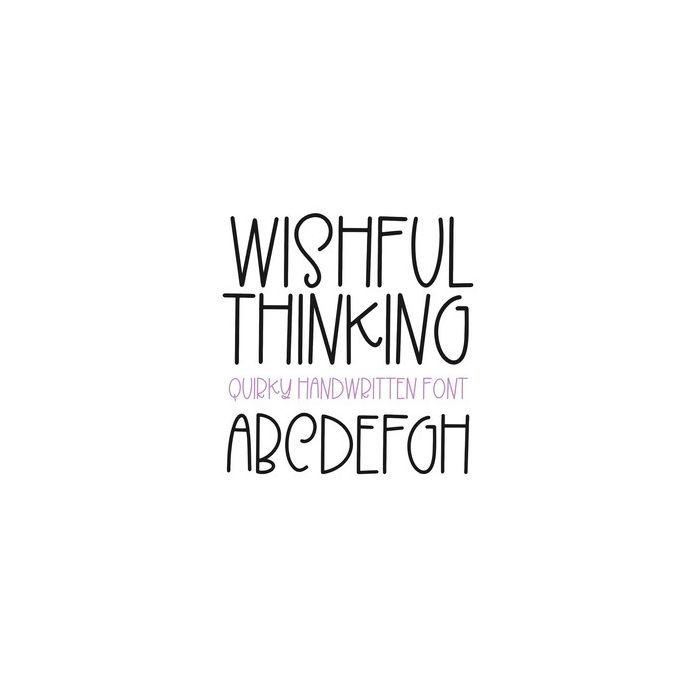
Wishful Thinking Font
Wishful Thinking is a quirky handwritten font! This font is perfect for all of your craft projects, including names for personalizations!